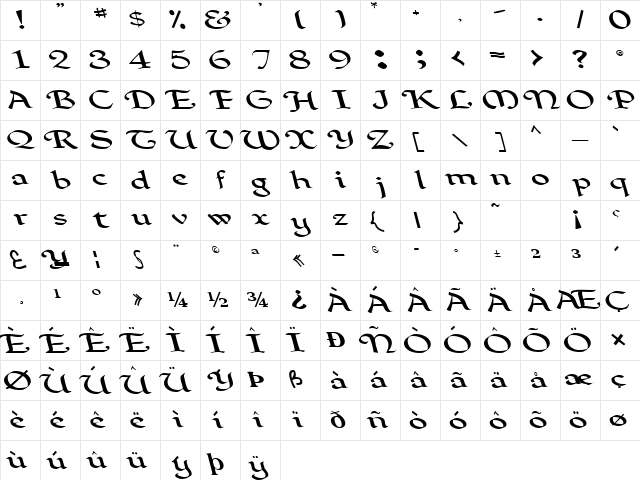
DevotedWorship107 Regular
DevotedWorship107 Family
DevotedWorship107 Regular
DevotedWorship107 Regular Font Preview
DevotedWorship107 Regular Uppercase Preview
DevotedWorship107 Regular Lowercase Preview
DevotedWorship107 Regular Numeric Preview
DevotedWorship107 Regular Character Map
Complete DevotedWorship107 Regular glyph index. Displaying only characters natively supported by DevotedWorship107 Regular font.
Design Context for DevotedWorship107
DevotedWorship107 is a composed and adaptable typeface that performs quietly and consistently across a wide range of design contexts.